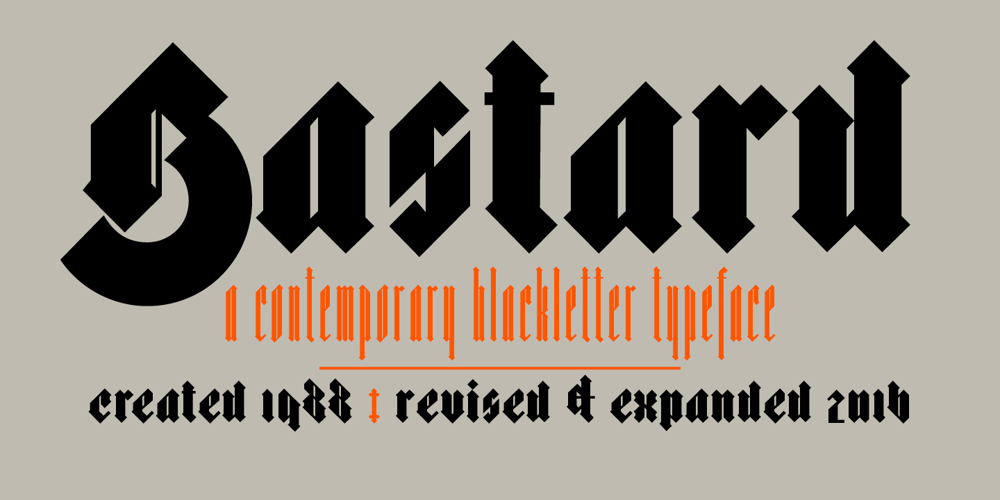
Bastard Font Family was designed by Jonathan Barnbrook and published by Barnbrook Fonts. Bastard contains 3 styles and family package options. Bastard is a contemporary blackletter typeface and was one of the first created using a personal computer. It was drawn using primitive font design software in 1988, and refined and published two years later. It has now been revised to feature an expanded character set.